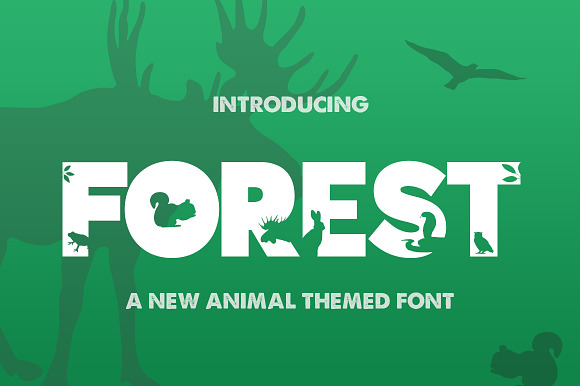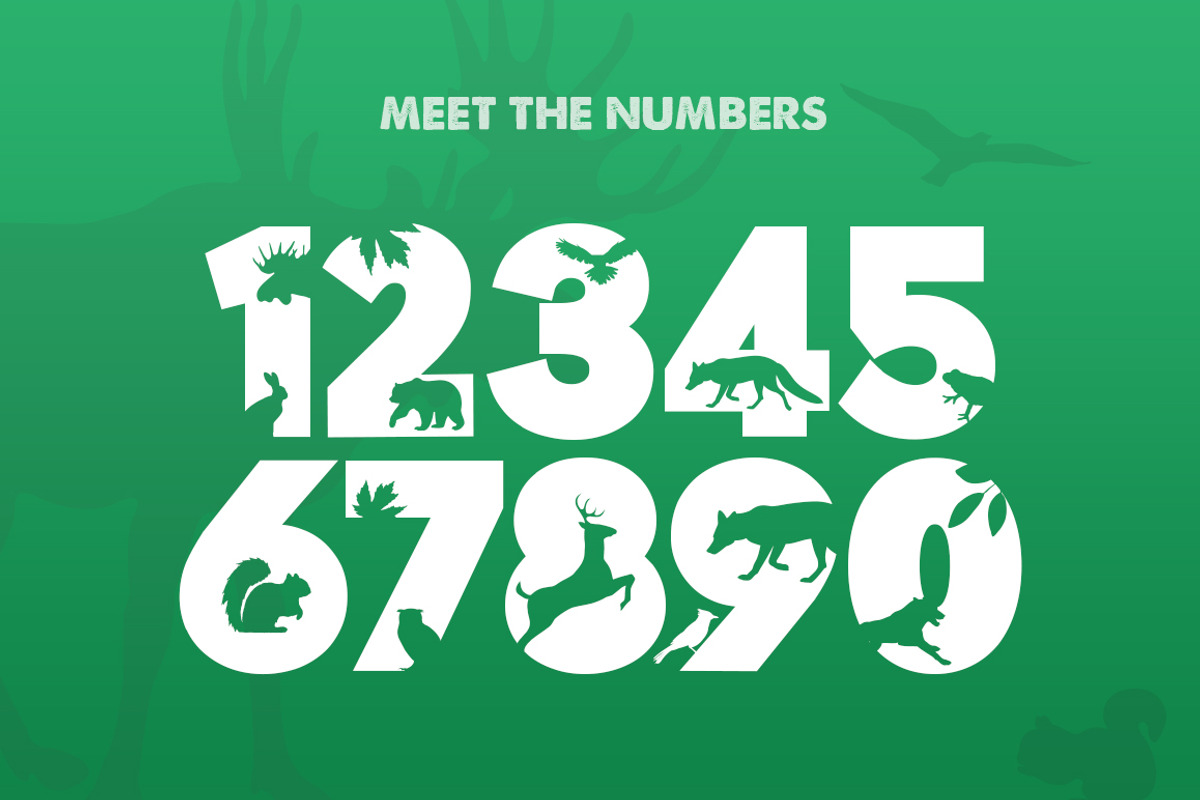
The Forest Font
Why The Forest Font is worth a look
The Forest Font by Salt & Pepper Designs fits naturally into Branding, posters, packaging, typography.